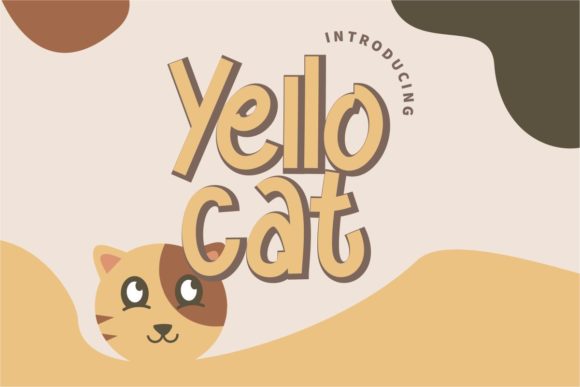
Yello Cat: A Playful Font for Creative Expression
Yello Cat is more than just a fontāitās a character, a vibe, and a visual statement. With its quirky, hand-drawn style and vibrant yellow hue, this display font brings a sense of fun and whimsy to any design. While it may seem like a niche choice, Yello Cat has proven itself to be incredibly versatile, especially when paired with bright colors. Its charm lies in its ability to stand out without overwhelming the message, making it ideal for a wide range of creative projects.
Where Does Yello Cat Shine?
At first glance, Yello Cat might remind you of childrenās books or playful branding, but its appeal extends far beyond that. Itās particularly effective in scenarios where the goal is to capture attention quickly and create an emotional connection. For instance, it works beautifully in event signage, social media graphics, and product packaging. The fontās bold strokes and rounded edges give it a friendly, approachable feel that resonates with both kids and adults.
Consider a local bakery that wants to promote its new line of cupcakes. Using Yello Cat on their menu board or social media posts can make the design feel more inviting and memorable. The fontās playful nature aligns perfectly with the product, helping to convey a sense of joy and excitement that appeals to a broad audience.
Real-World Applications Beyond Kidsā Themes
While Yello Cat is often associated with children-themed designs, its utility isnāt limited to that space. In retail environments, it can be used for store window displays, promotional materials, or even in-store signage. Imagine a boutique selling handmade toys or craft suppliesāusing Yello Cat on their storefront can create a welcoming atmosphere that draws in customers looking for something unique.
In the realm of digital marketing, Yello Cat can be a powerful tool for brands aiming to build a strong visual identity. Itās particularly effective in email newsletters, website headers, and landing pages. For example, a lifestyle brand focused on outdoor adventures could use Yello Cat as a headline to emphasize the fun and adventure aspect of their products.
Another area where Yello Cat excels is in educational content. Teachers and educators often need visually engaging materials to keep students interested. Using this font in classroom posters, lesson plans, or interactive activities can help break the monotony and add a touch of creativity to learning environments.
Who Benefits from Using Yello Cat?
The beauty of Yello Cat is that it caters to a variety of users with different needs and goals. Designers looking for a unique font that stands out in a sea of similar options will find value in its distinct personality. Marketers can leverage its charm to connect with audiences on an emotional level, while entrepreneurs might use it to create branding that feels personal and authentic.
For parents and educators, Yello Cat offers a way to make learning and communication more engaging. It can be used in childrenās books, educational games, or even in parent-teacher communication materials. The fontās playful tone helps create a positive association with the content, encouraging children to engage more actively with what theyāre learning.
Even freelancers and small business owners can benefit from using Yello Cat. Whether itās for creating logos, designing flyers, or developing branding assets, the font adds a layer of personality that sets their work apart from competitors.
Considerations Before Using Yello Cat
Before jumping into a project with Yello Cat, there are a few key considerations to keep in mind. First, context matters. While the font is great for playful and child-friendly designs, it may not be the best fit for formal or professional settings. If you're designing a corporate document or a legal notice, a more traditional font would be more appropriate.
Second, readability is important. Although Yello Cat is stylized, it should still be legible at various sizes. Test it in different contexts to ensure that the text remains clear and easy to read. This is especially crucial for digital content, where the font may appear smaller on screens.
Lastly, consistency is key. Use Yello Cat strategicallyāreserve it for headlines, titles, or accents rather than entire paragraphs. Overuse can lead to visual clutter and reduce the impact of the fontās unique qualities.
Why Yello Cat Stands Out
What sets Yello Cat apart from other display fonts is its ability to balance playfulness with professionalism. It doesnāt come off as childish or unrefined; instead, it feels like a modern, intentional choice that adds character without sacrificing clarity. This makes it suitable for a wide range of applications, from casual branding to more serious creative projects.
Additionally, the fontās visual versatility allows it to adapt to different color schemes and backgrounds. Whether you choose to pair it with pastel tones, neon hues, or bold contrasts, Yello Cat maintains its charm and readability. This flexibility makes it a valuable asset for designers working across multiple platforms and mediums.
Finally, Yello Cat is a reminder that typography can be both functional and expressive. It encourages designers to think beyond aesthetics and consider how the font can enhance the overall message and experience of the design.